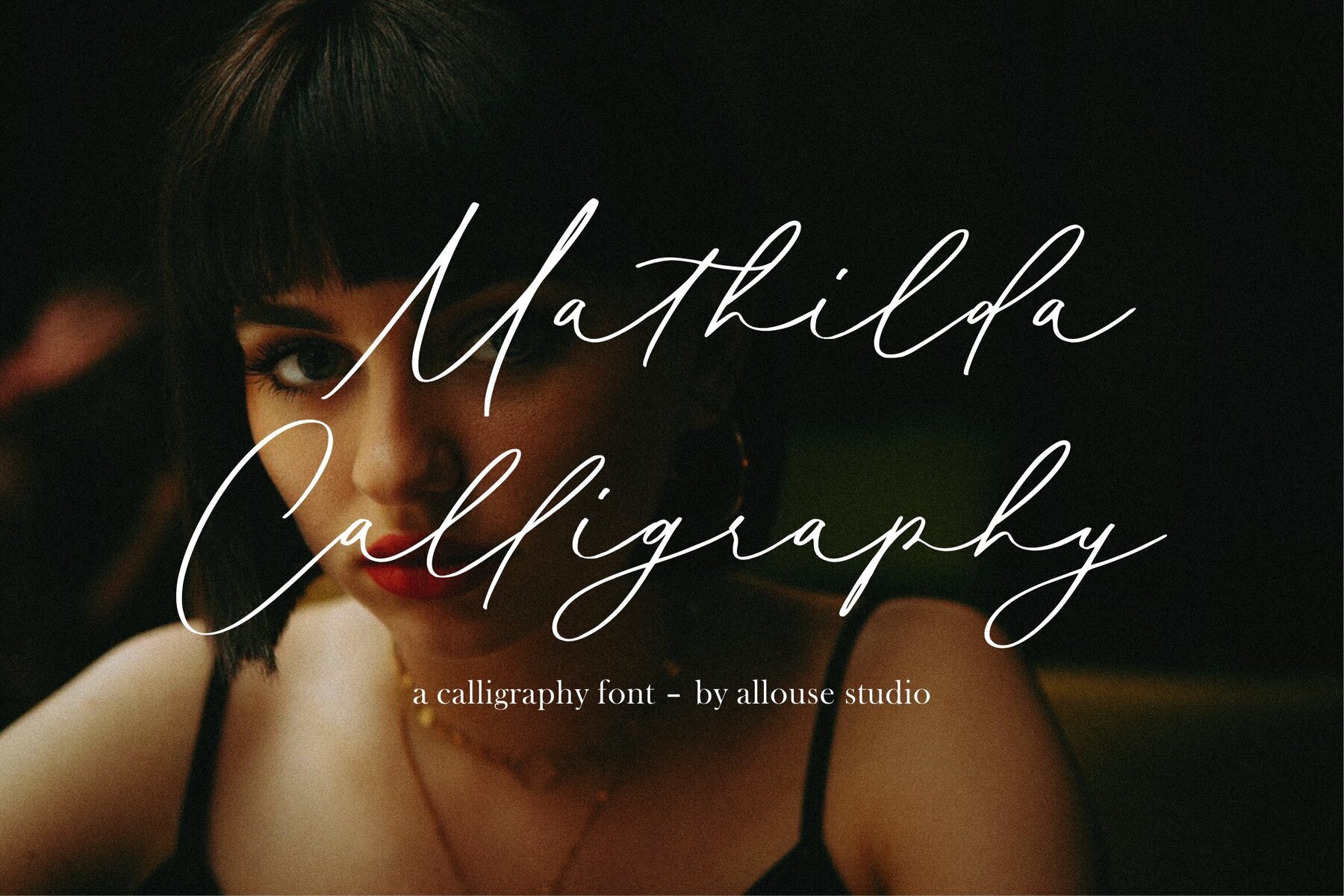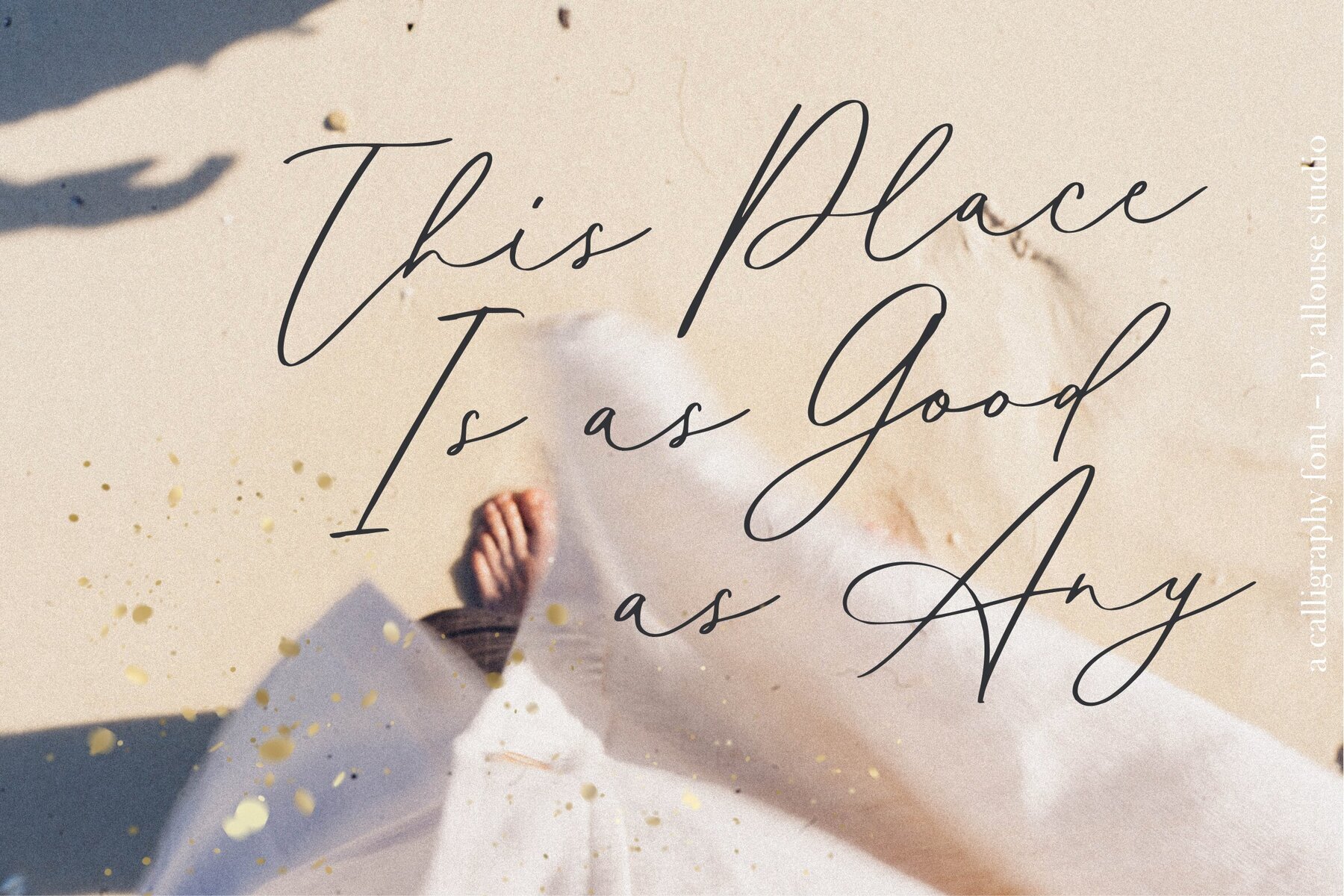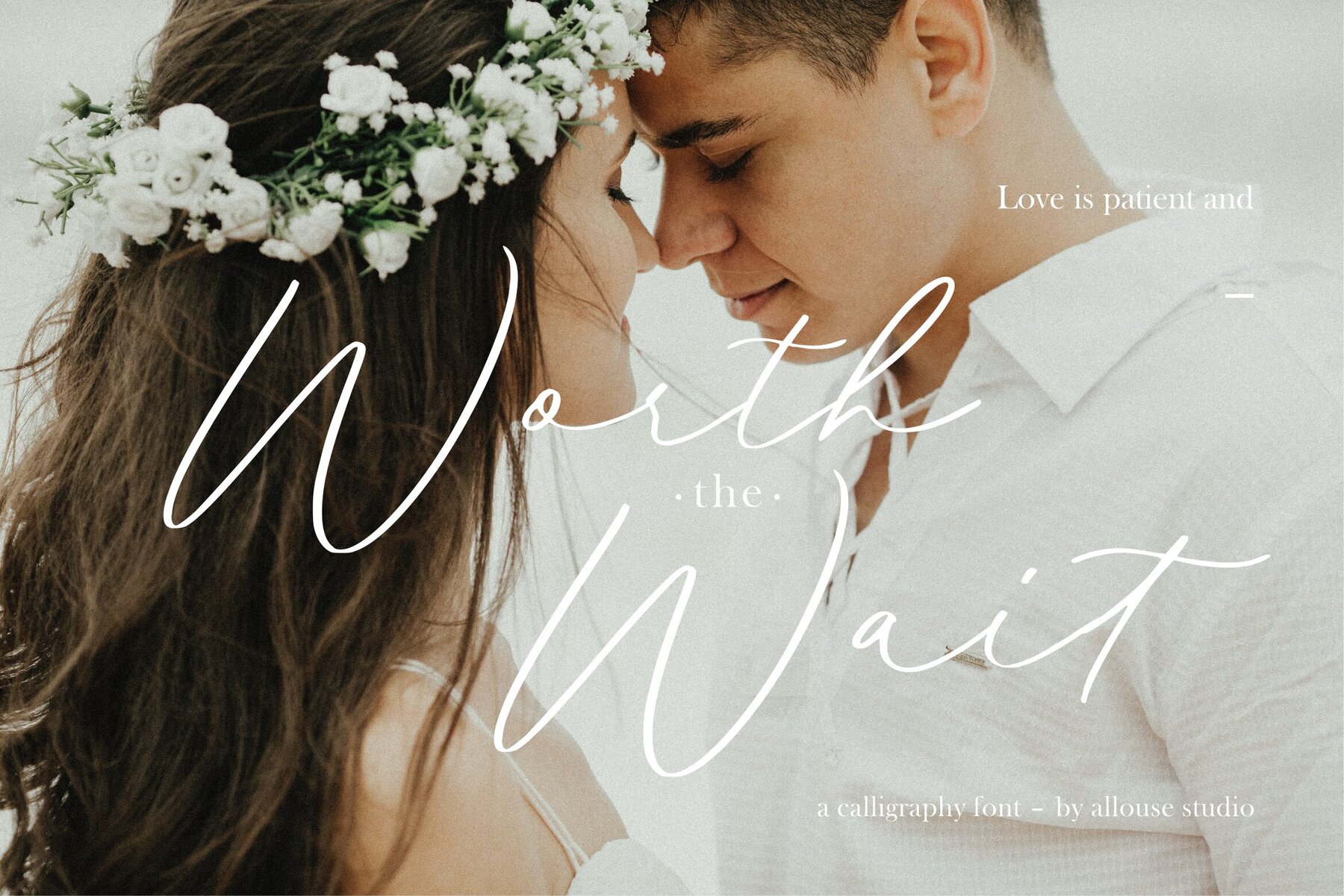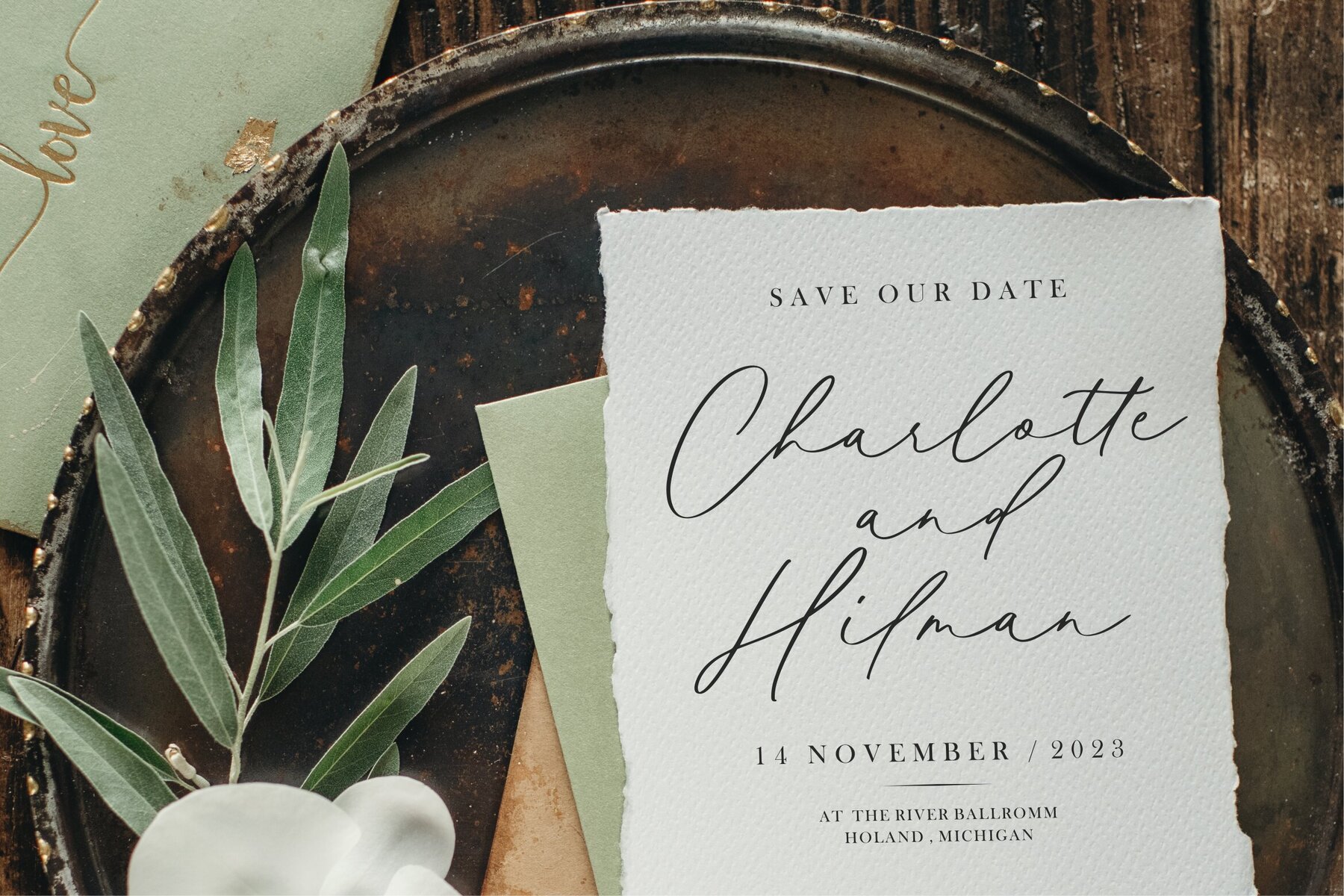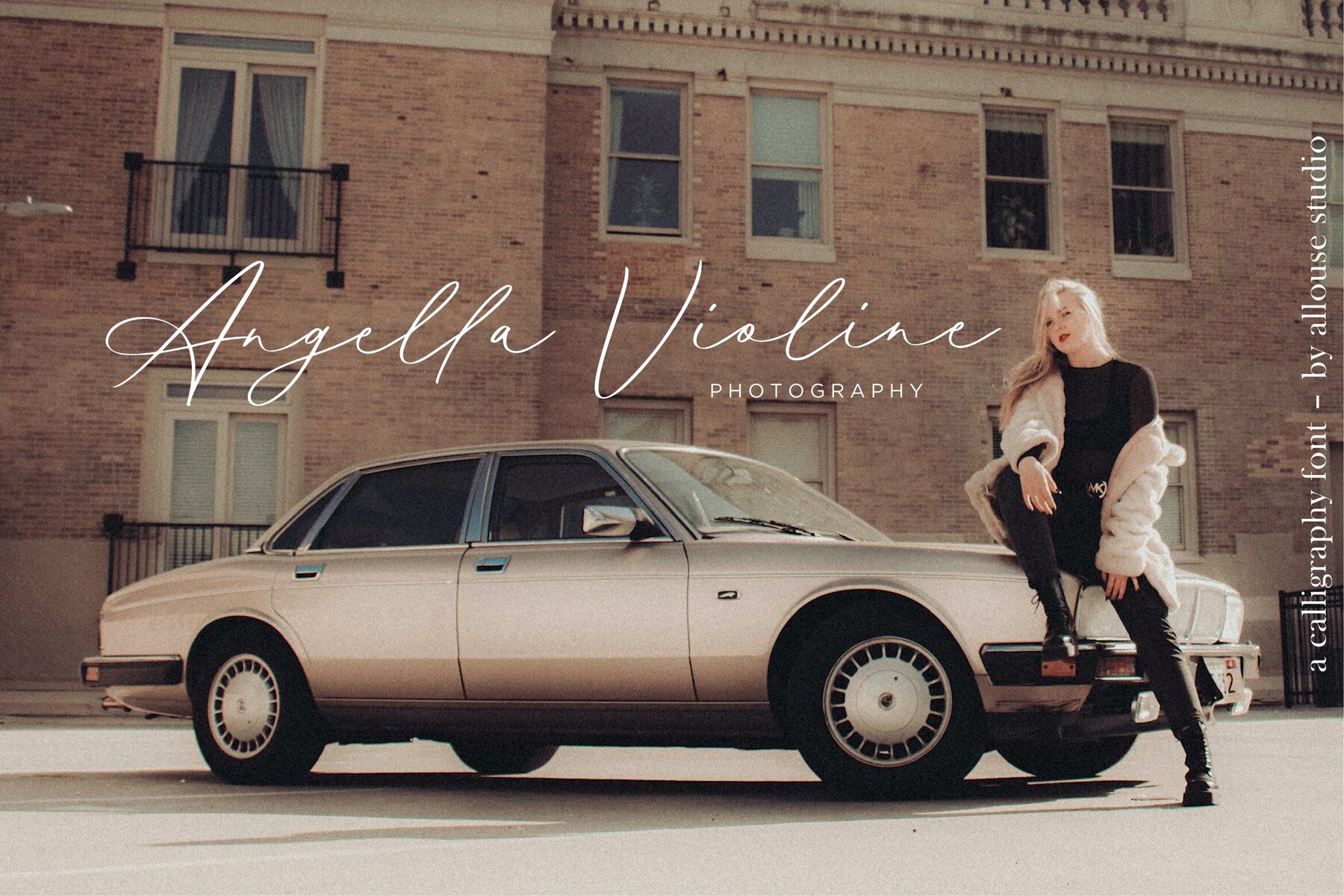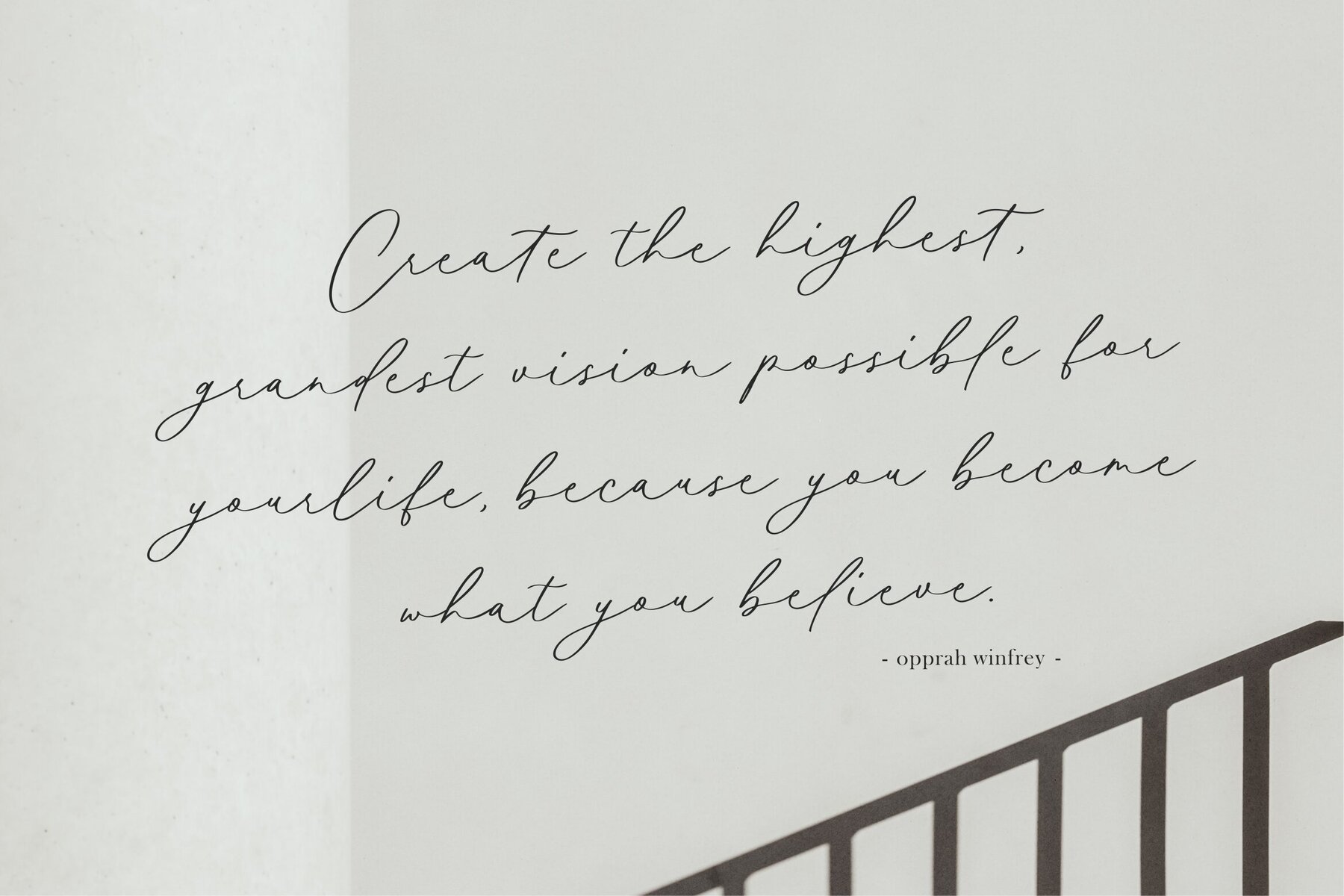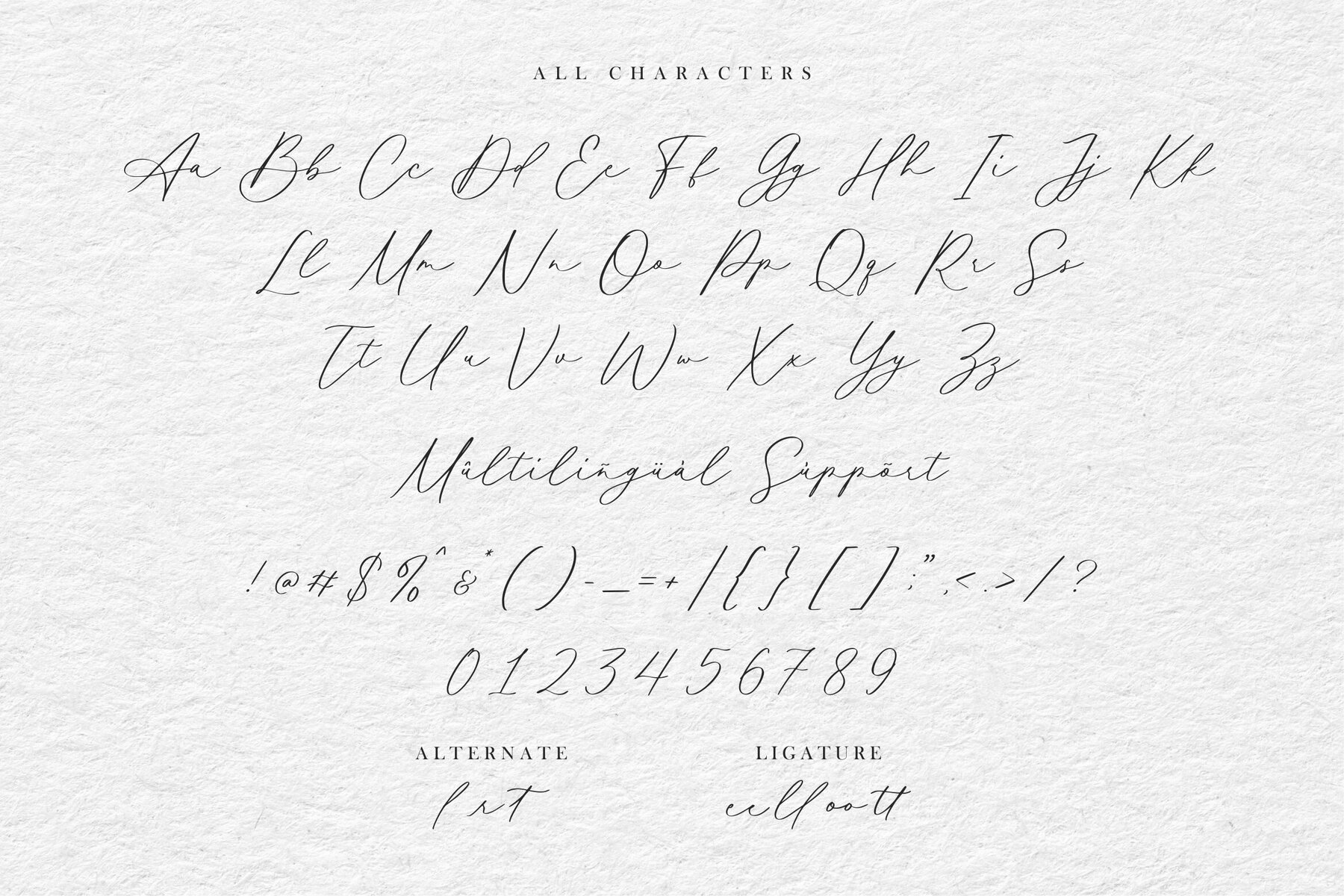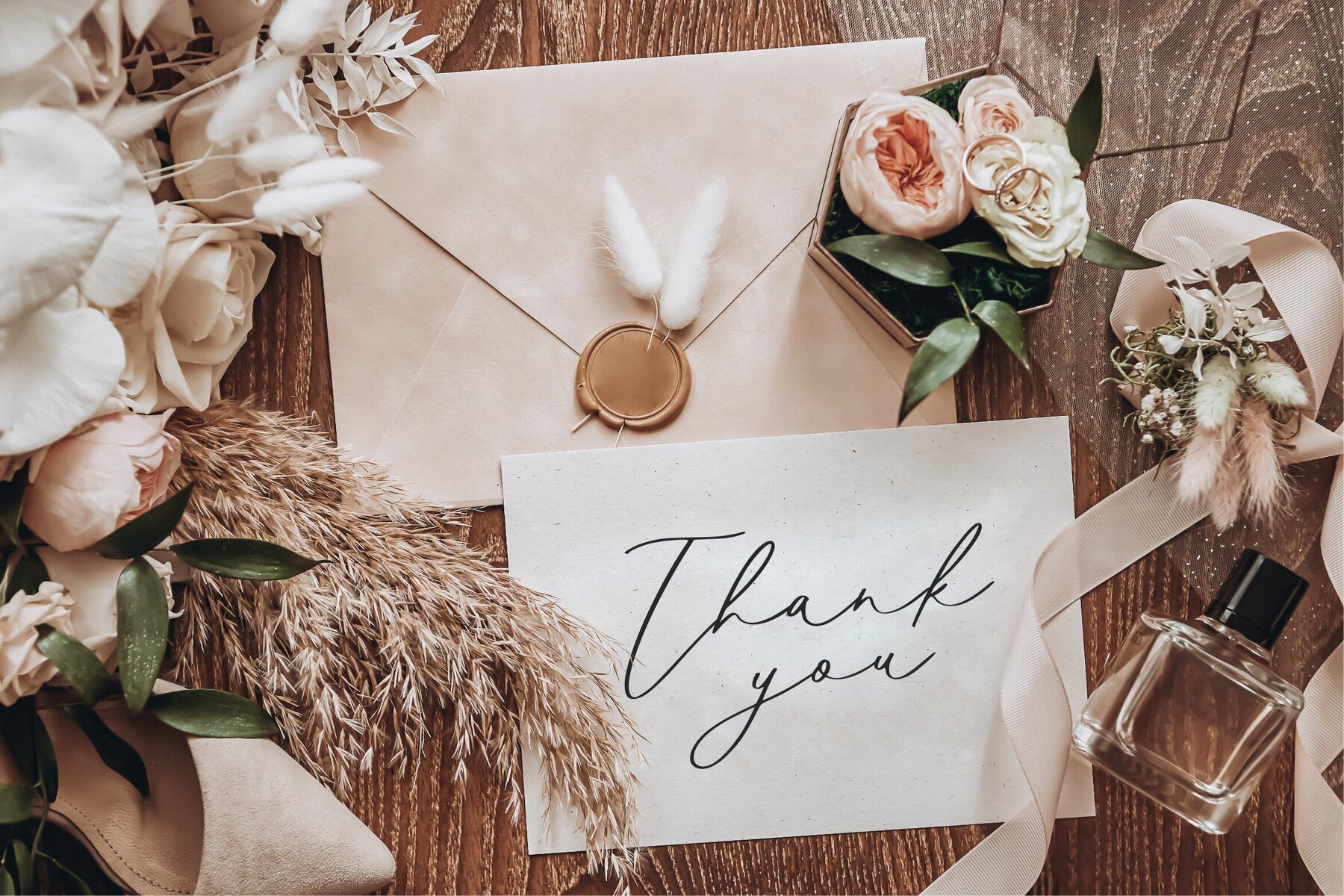
Mathilda Calligraphy Font
Mathilda Calligraphy
Mathilda Calligraphy is a beautifully crafted calligraphy font that adds a personal touch to any project. This elegant typeface is ideal for a wide variety of applications, from product packaging to wedding invitations, making it a perfect choice for those seeking an aesthetically pleasing and sophisticated look.Mathilda Calligraphy: Expressive and Versatile Calligraphy Font